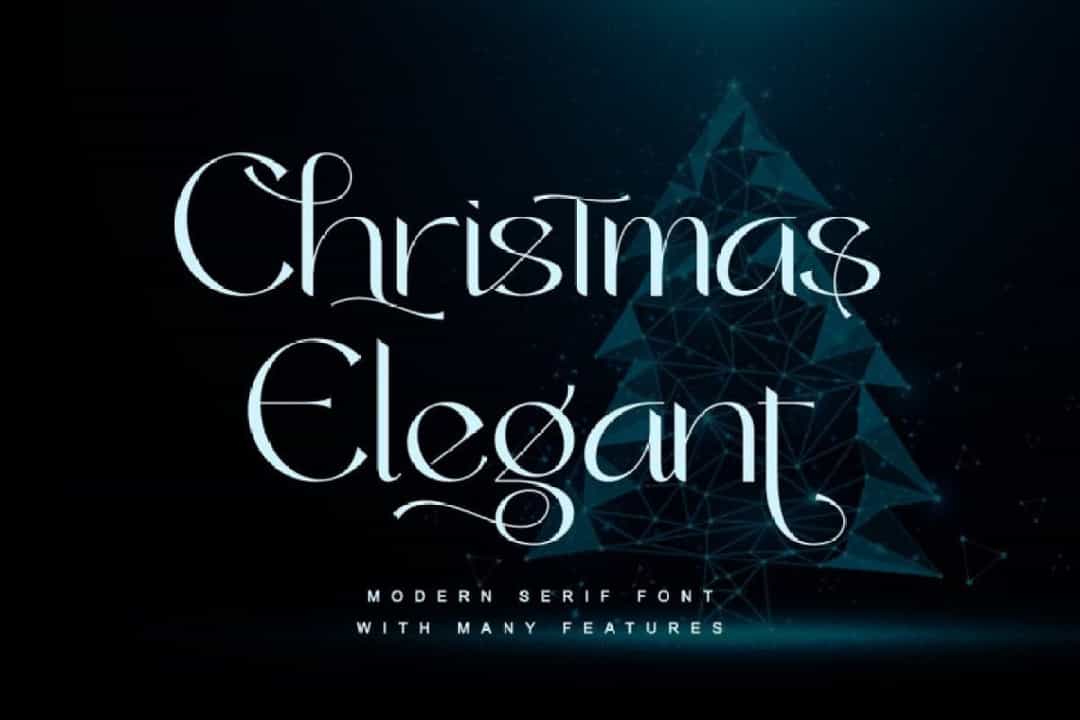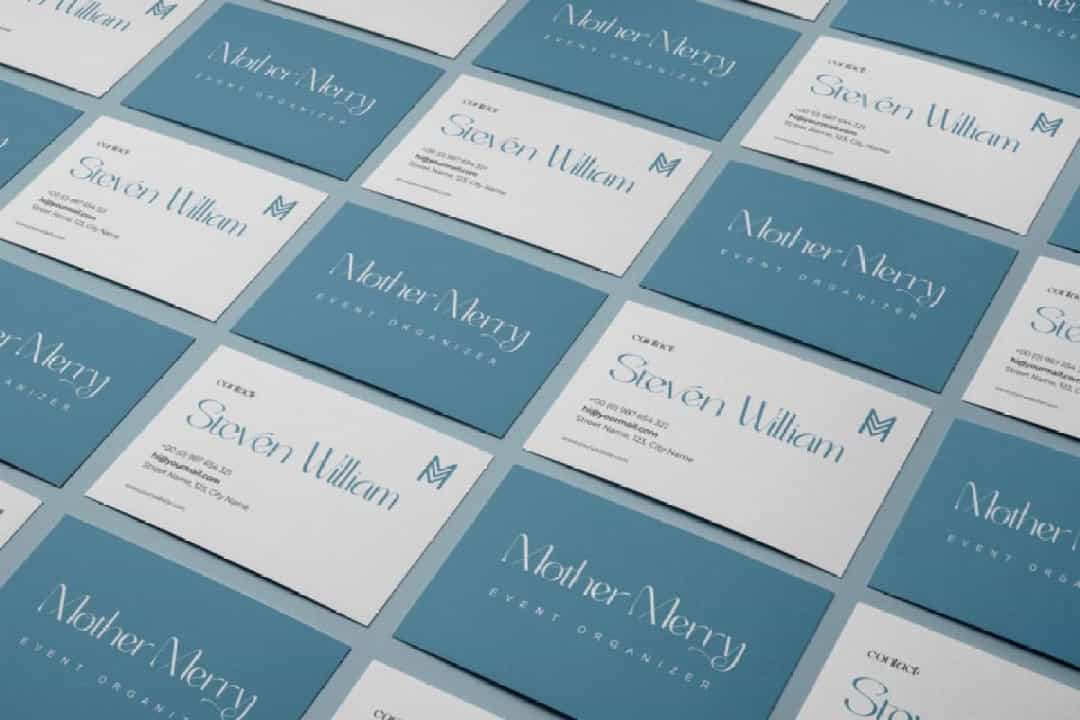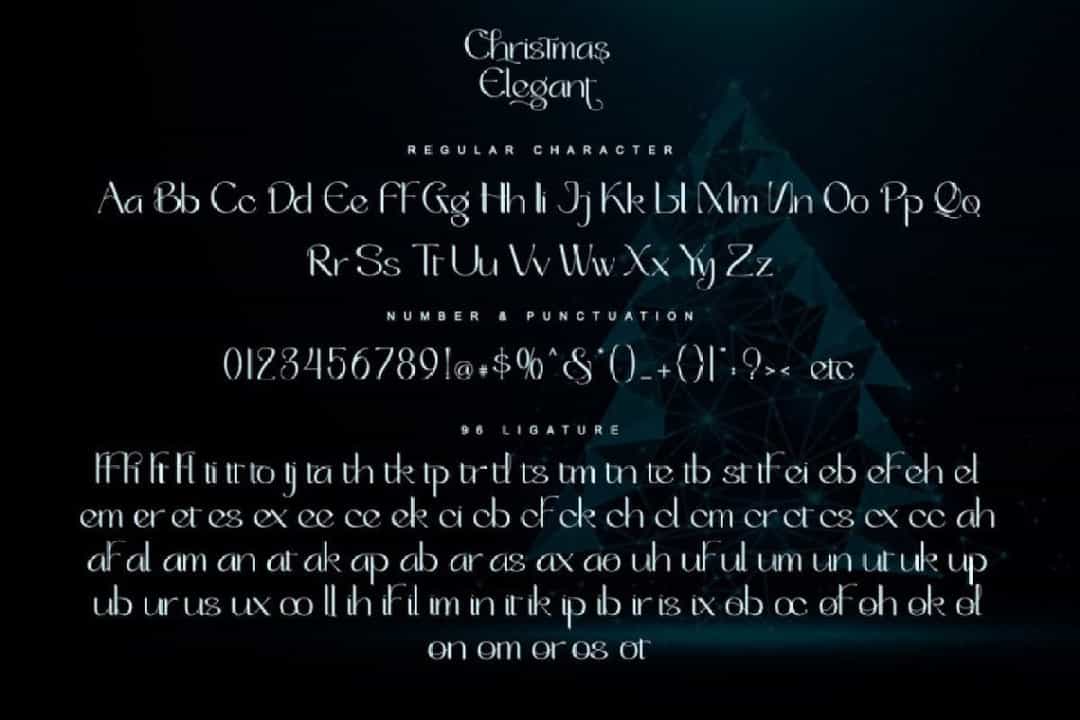
Christmas Elegant is a modern and classic serif font with its own distinct character and flair, ideal for both contemporary and retro design projects. This font can be utilized in various applications, including branding, crafting sublimation, stickers wedding invitations fashion advertising vintage mood boards packaging logotypes titles editorial design among many other applications.